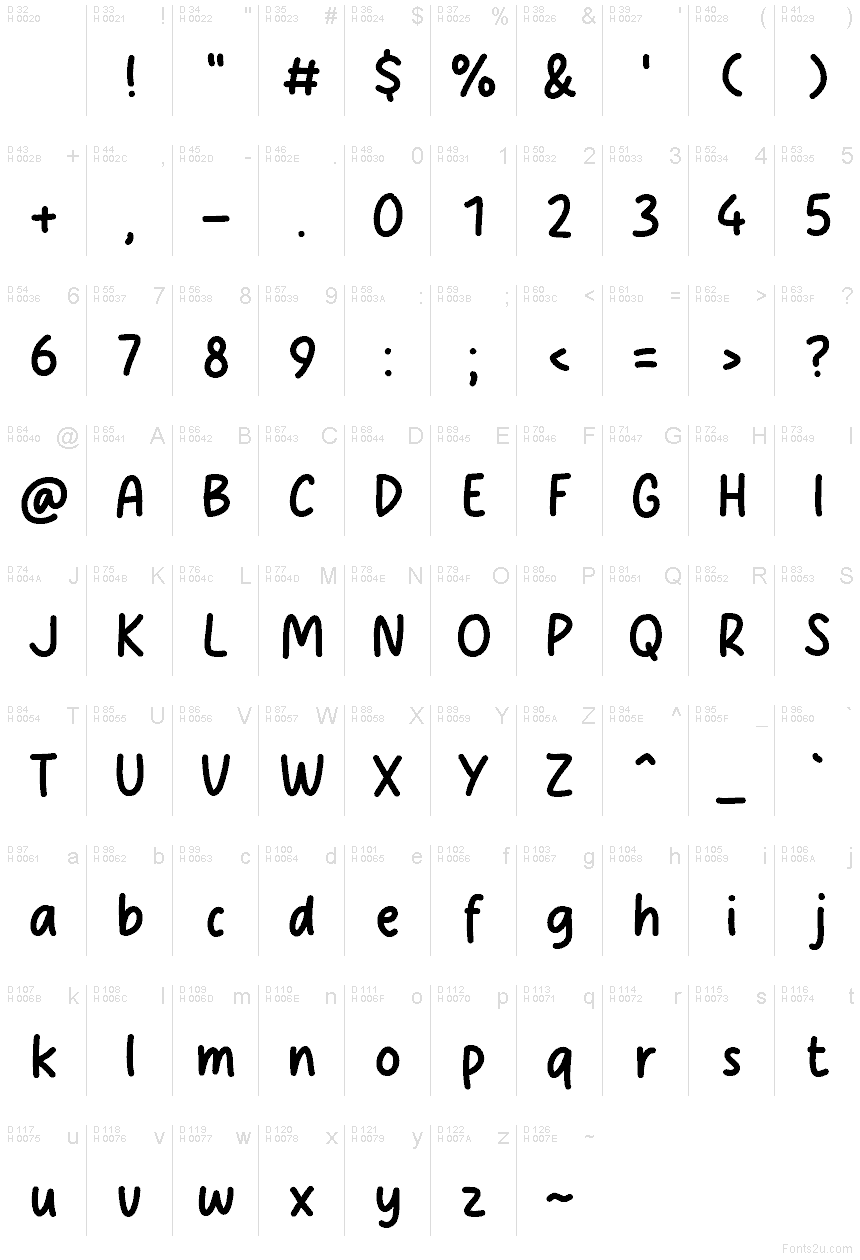
Notevela
Notevela font is a free handwritten font by Origin Type, where smoothness and casualness are brought to life. Its organic yet delicate shape mimics the friendly and approachable handwriting of most individuals with modern applications in mind, giving you a dashing versatile option to use.
The trendy style of this modern font makes it ideal for branding, packaging design, posters, invitations, headlines, apparel designs/themes/typographic compositions/logotypes. Its timelessness also allows it to be used in web design and social media platforms.